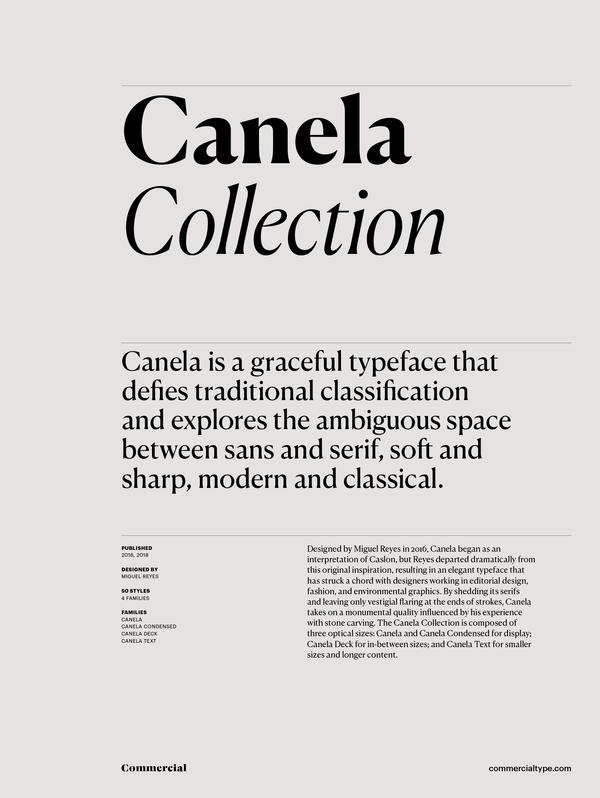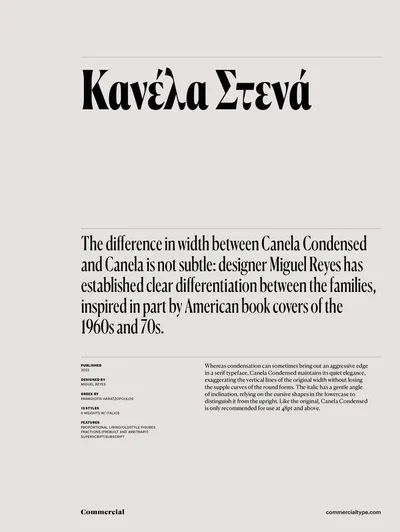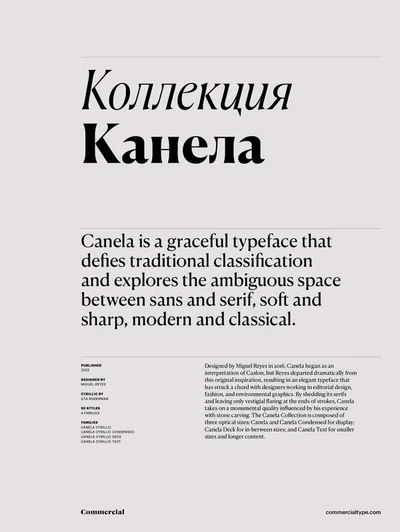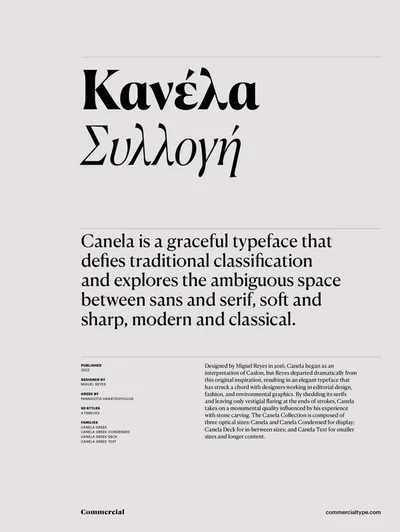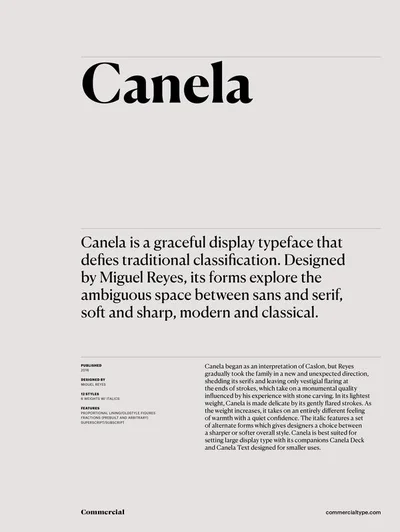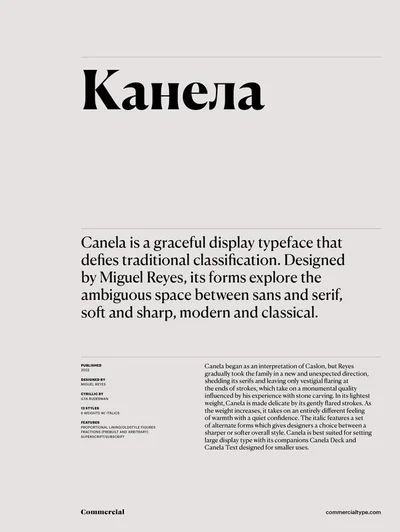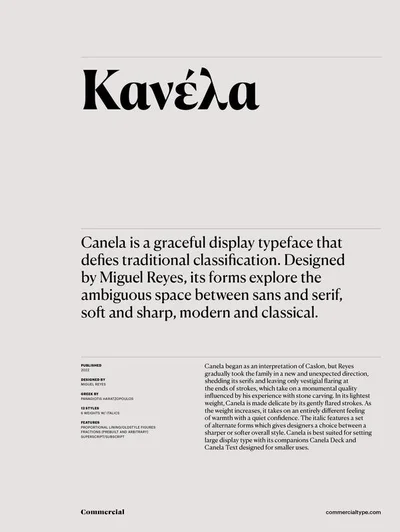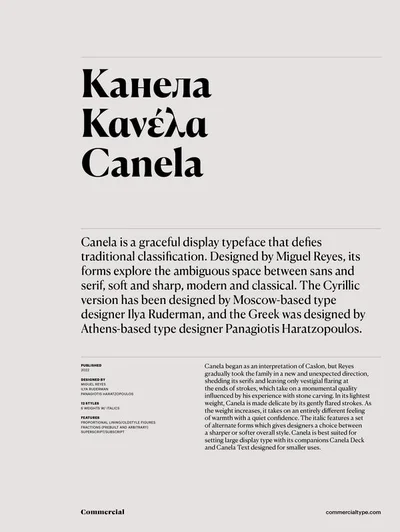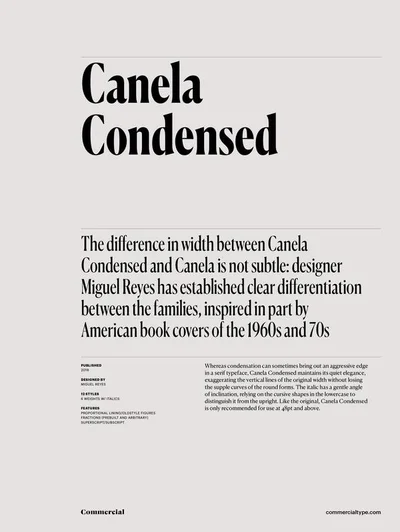
Canela vs Reckless
Canela and Reckless are both serif typefaces sharing a high contrast foundation. Where Canela leans modern, elegant, Reckless brings display, bold. Compare which suits your Editorial project.
Recommended: Canela
- modern, elegant design character
- Suited for Luxury and Branding
Consider: Reckless
- display, bold design character
- Suited for Headlines